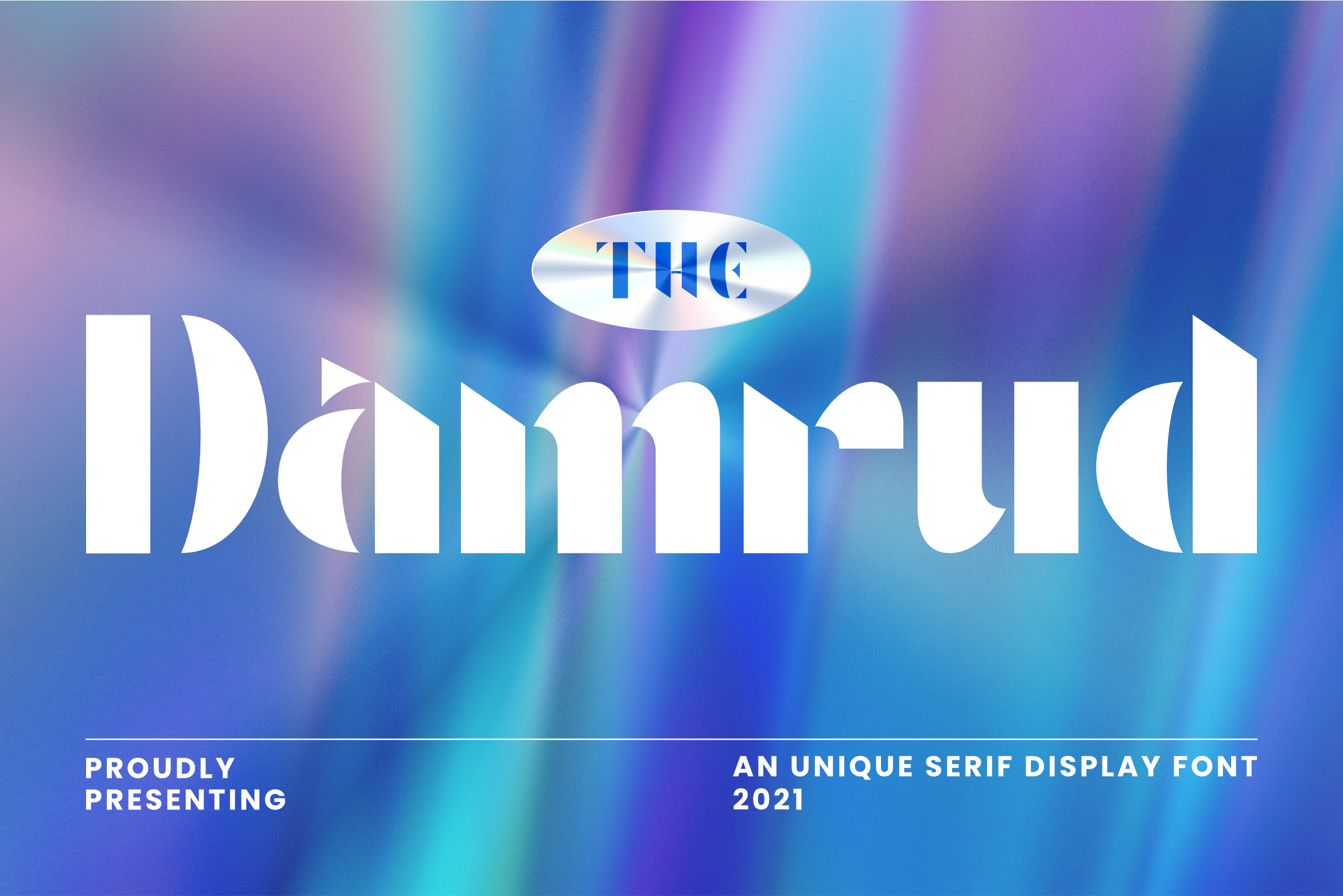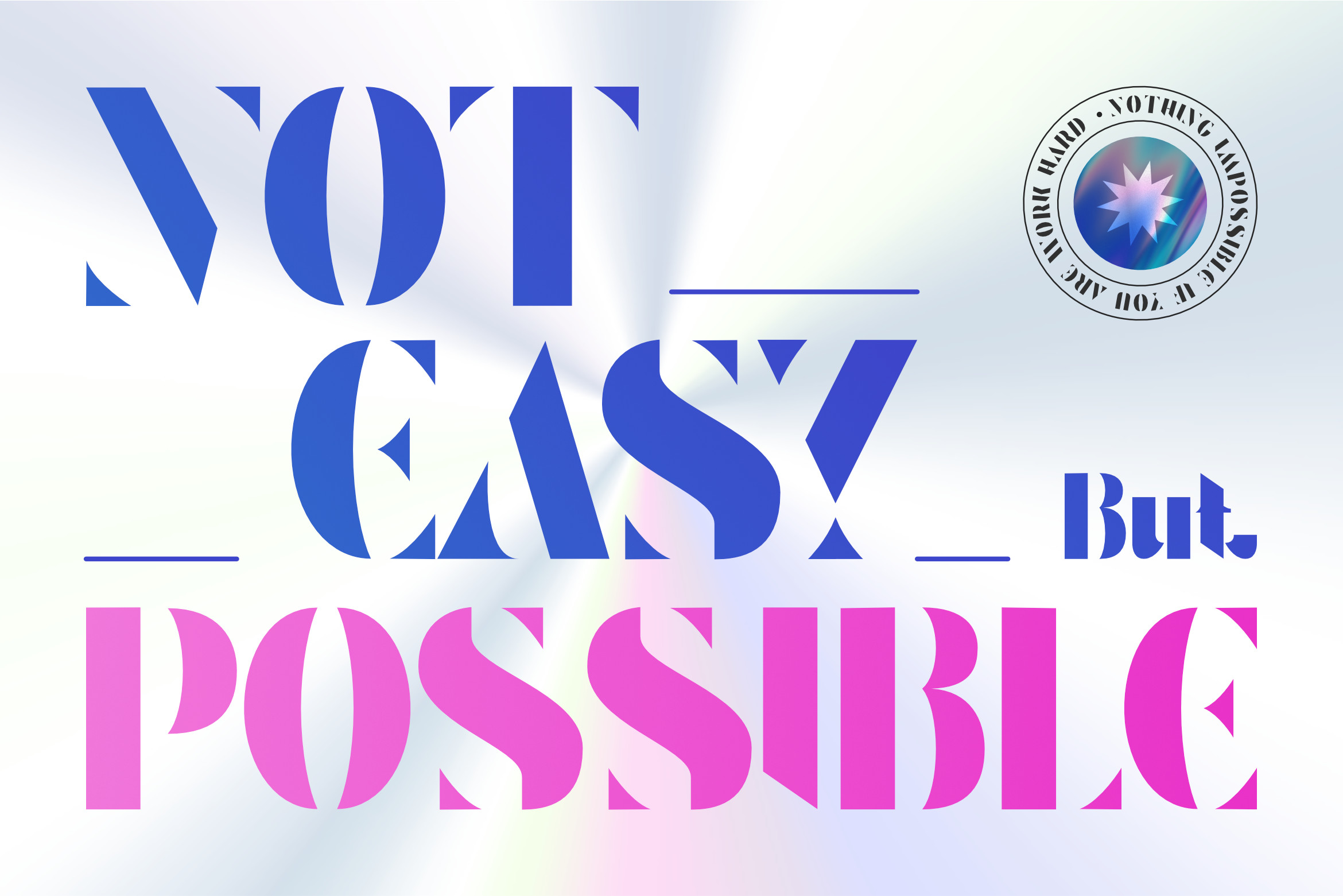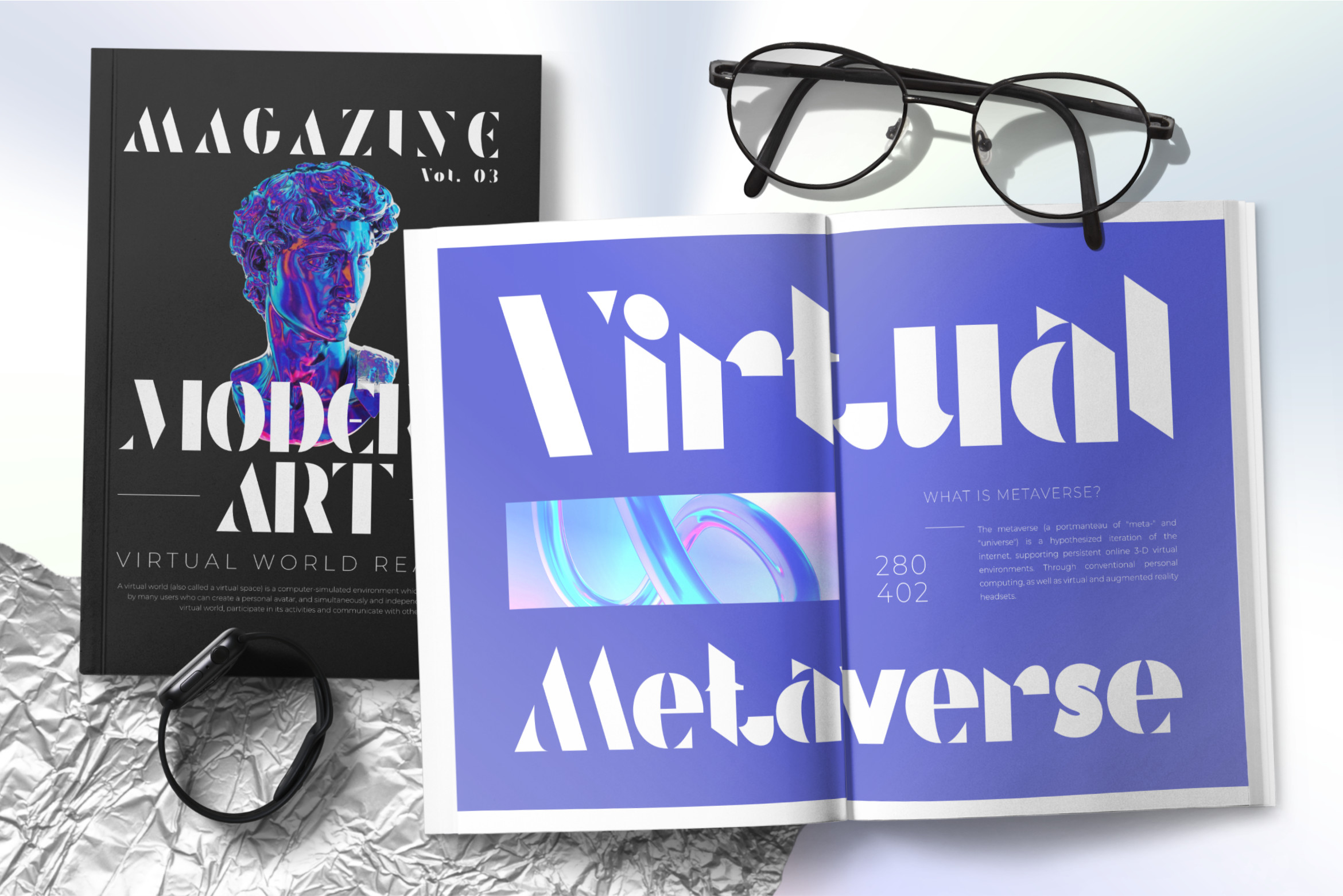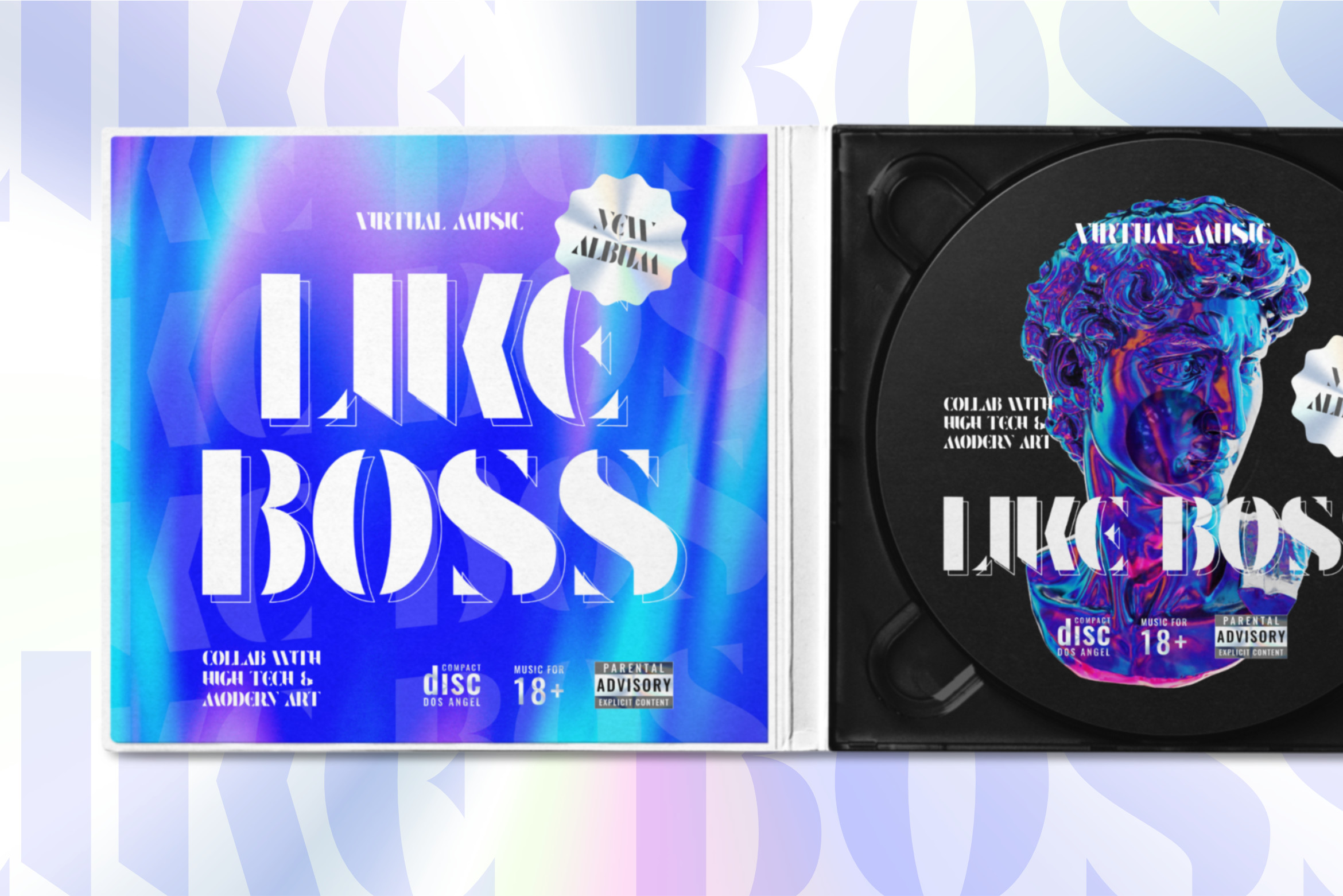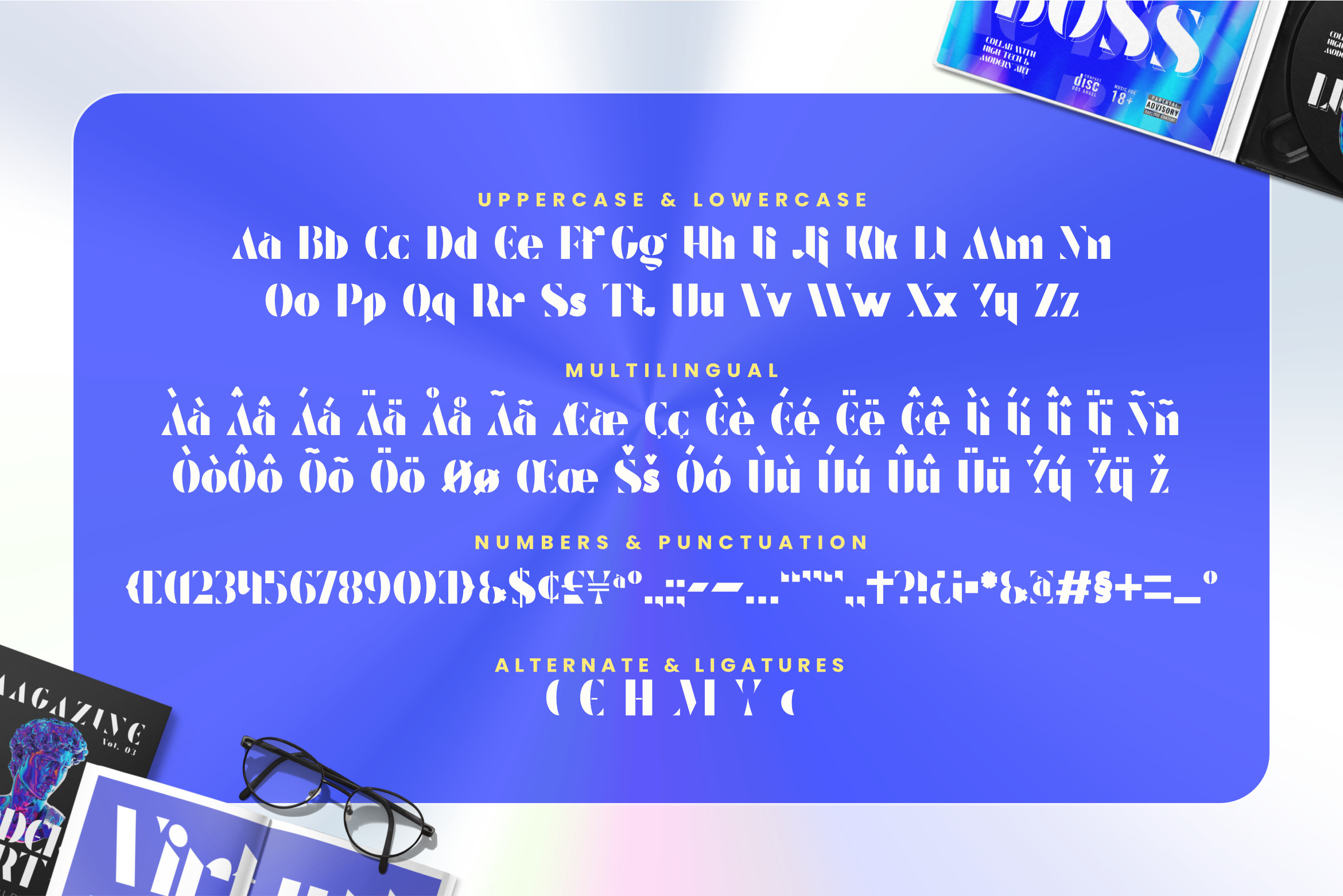
Damrud is a bold and futuristic serif display font that blends the elegance of traditional serif elements with contemporary geometric cuts and stencil-like details. Designed to stand out, Damrud features sharp contrasts, edgy letterforms, and high visual impact. Making it ideal for creative branding, music covers, editorial headlines, and fashion-forward projects. With its modernist touch and cyber-vibe aesthetic, the font radiates energy and innovation.
Equipped with multilingual support, alternate characters, and custom ligatures, Damrud offers flexibility for dynamic layouts and experimental typography. Whether you’re designing a high-tech magazine, a digital art project, or a conceptual music album, this font injects uniqueness into every letter. Its abstract aesthetic pairs perfectly with iridescent gradients, virtual themes, and bold messaging.
Damrud